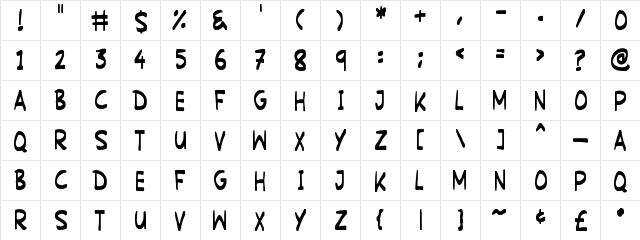
Martian Signpost Regular
Design Context for Martian Signpost Typeface
Martian Signpost is a composed and adaptable typeface that performs quietly and consistently across a wide range of design contexts.